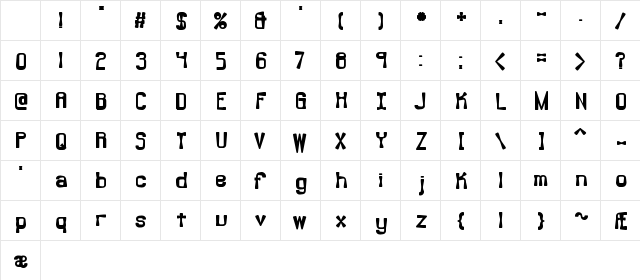
Complete Backlash BRK Regular glyph index. Displaying only characters natively supported by Backlash BRK Regular font.
Backlash BRK is a composed and adaptable typeface that performs quietly and consistently across a wide range of design contexts.